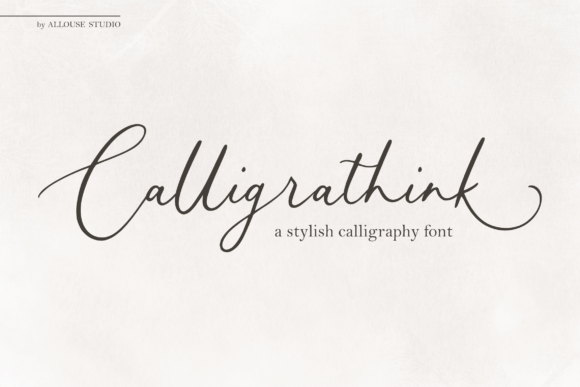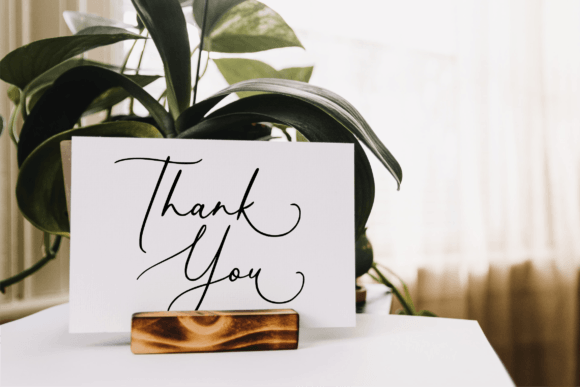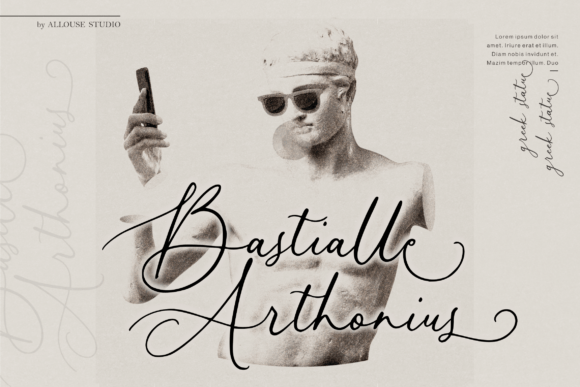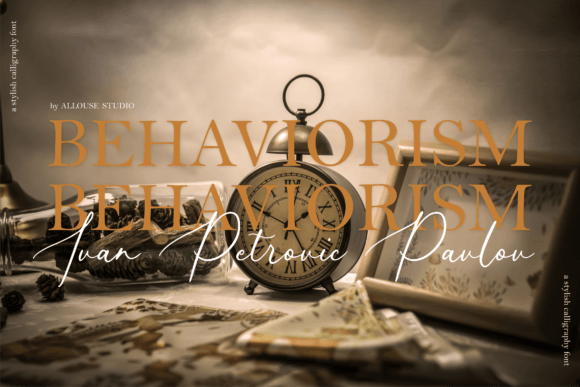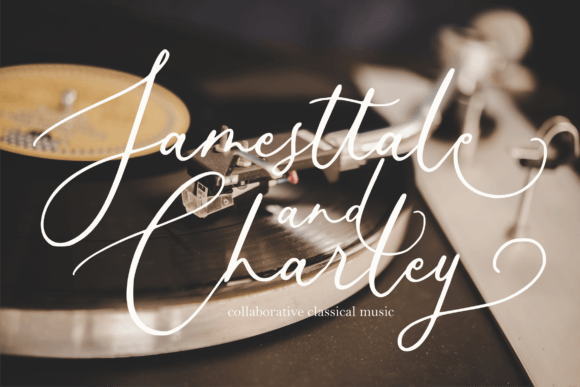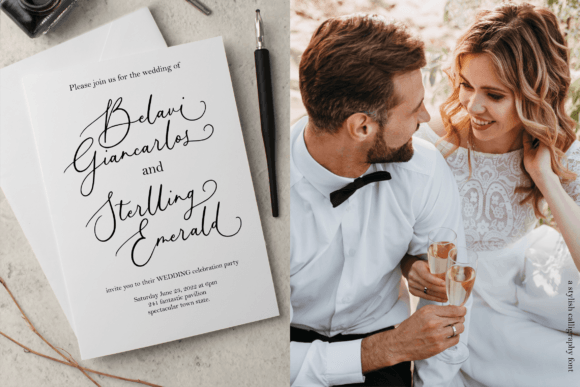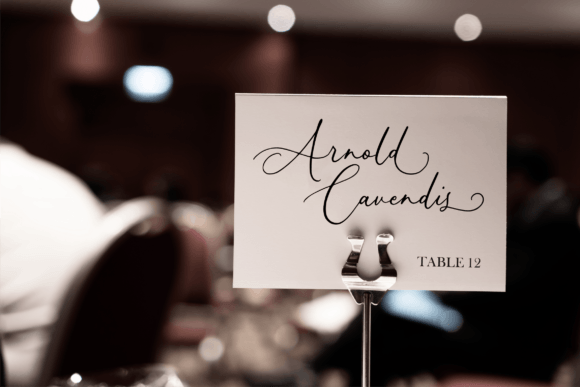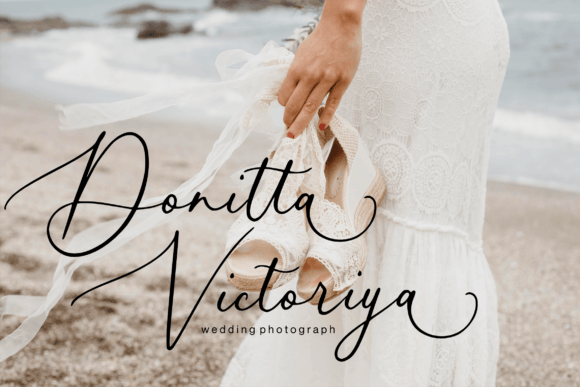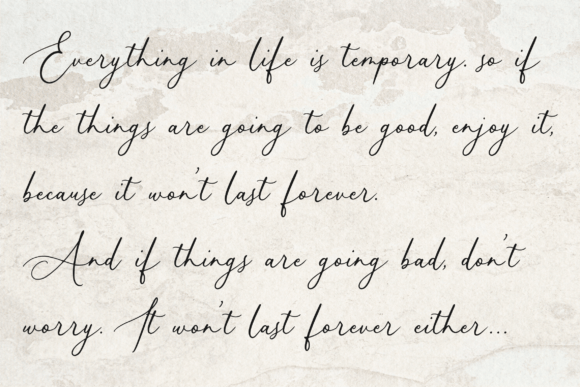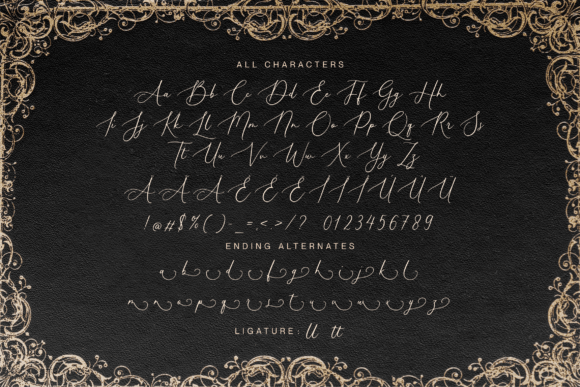
Calligrathink Font
About Calligrathink Font
“Calligrathink” is a stylish handwritten font that adds a touch of sophistication to various design projects. Its elegant and fluid strokes make it perfect for product packaging, branding projects, magazines, social media posts, wedding invitations, and any other creative endeavor where a touch of finesse is needed.
The font’s stylish appearance lends a modern and trendy vibe to your designs. Its versatility allows it to seamlessly integrate into different contexts, enhancing the visual appeal of your projects. Whether you’re crafting a chic product label, an elegant wedding invitation, or eye-catching social media graphics, “Calligrathink” adds a layer of sophistication, making your designs stand out.
The handwritten quality of “Calligrathink” adds a personal touch to your creations. It brings a sense of authenticity and warmth, making your words and messages more relatable to your audience. Its graceful and expressive characters allow you to convey emotions and ideas effectively, creating a strong impact on your viewers.
Incorporating “Calligrathink” into your design projects allows you to express words above the background with style and elegance. Its versatile nature ensures that it complements various design elements, making it a valuable asset in your creative toolkit. Embrace the font’s stylish charm and let it elevate your designs, adding a sophisticated touch to your branding, packaging, and promotional materials.